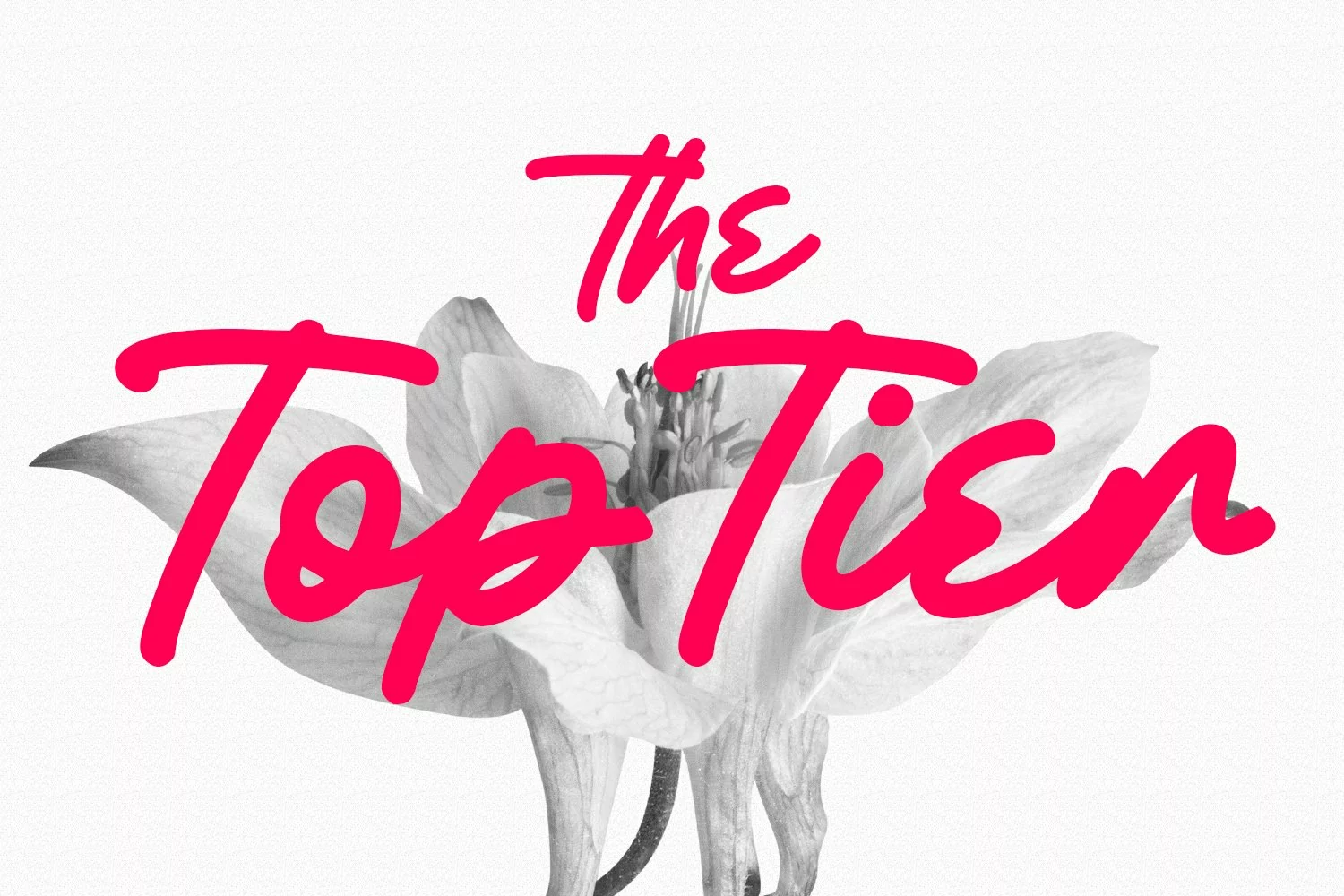
Bonefurys is a modern casual script font. With medium mono-line stroke, fun character. To give you an extra creative work. Bonefurys font support multilingual more than 100+ language. This font is good for logo design, Social media, Movie Titles, Books Titles, a short text even a long text letter and good for your secondary text font with sans or serif. Make a stunning work with Bonefurys font.